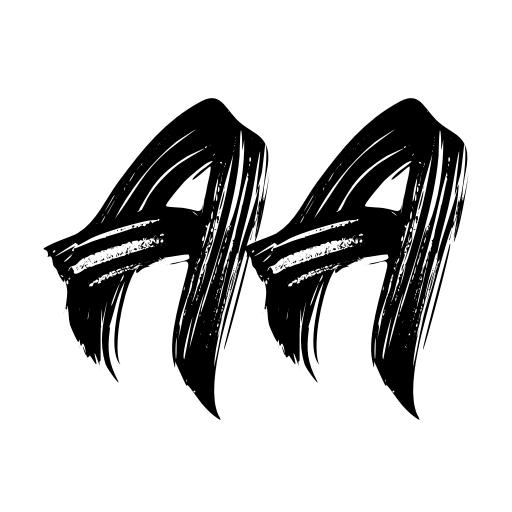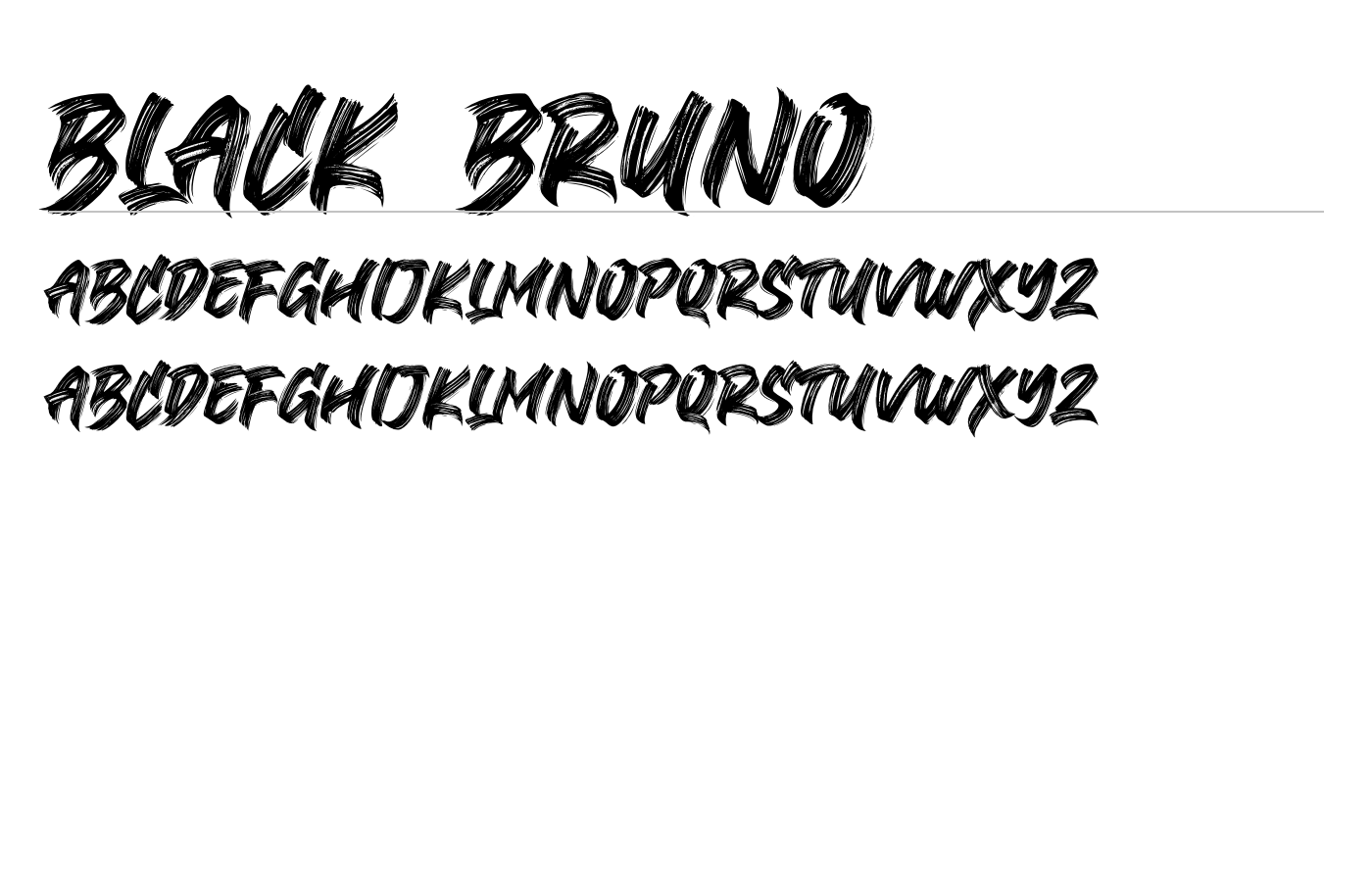
Black Bruno is a bold, expressive brush script font that captures a raw, hand-painted feel with its dynamic, textured strokes and slightly irregular shapes. Its uppercase design conveys energy and creativity, making it ideal for eye-catching headlines, logos, and branding that seek a vibrant, artistic, or casual vibe. This font works especially well where a lively, impactful, and informal aesthetic is desired.
Black Bruno Font
About Black Bruno Font
| Font family | Black Bruno Font |
| Designer | Rangga Singgih Subekti |
| Trademark | Subectype |